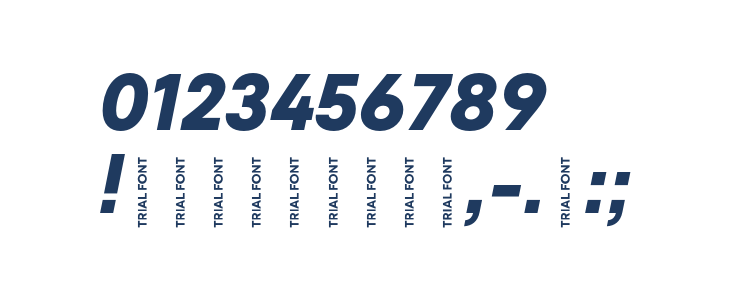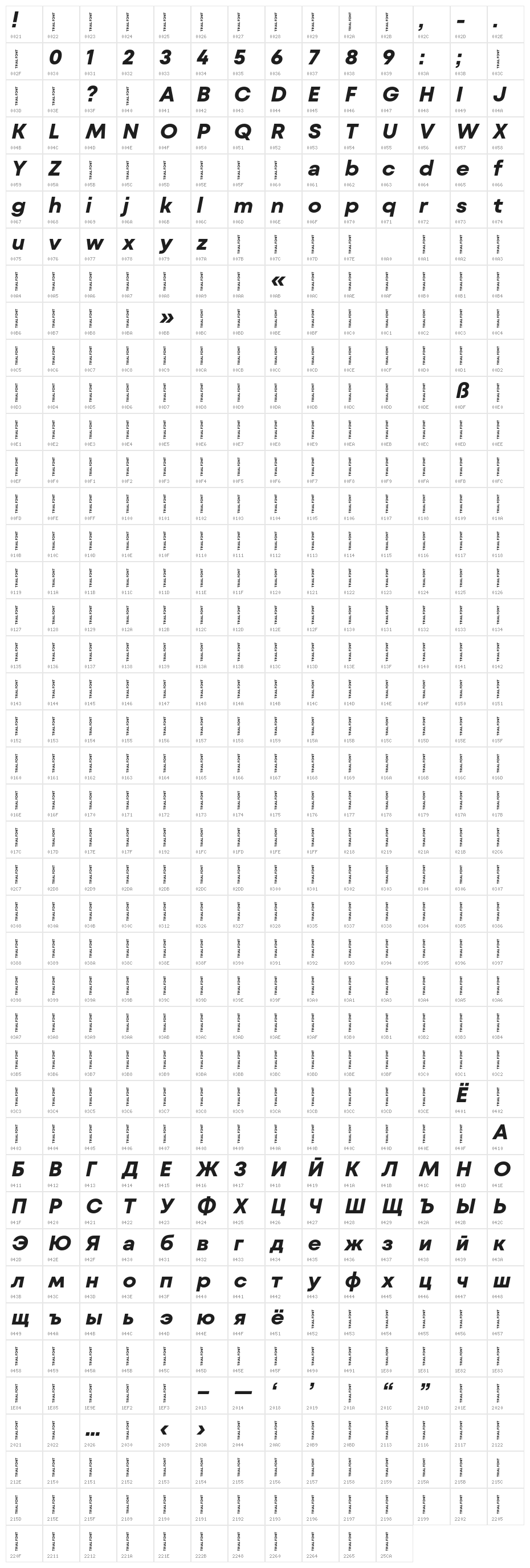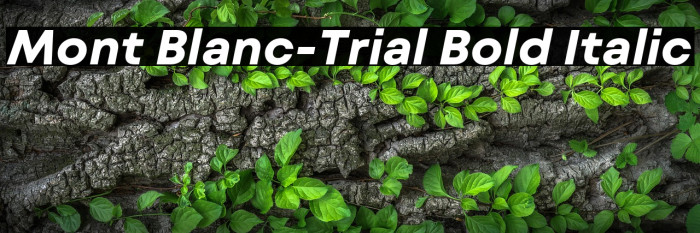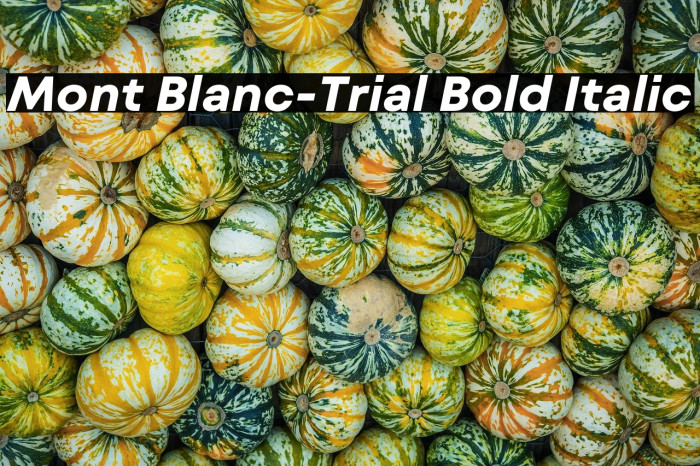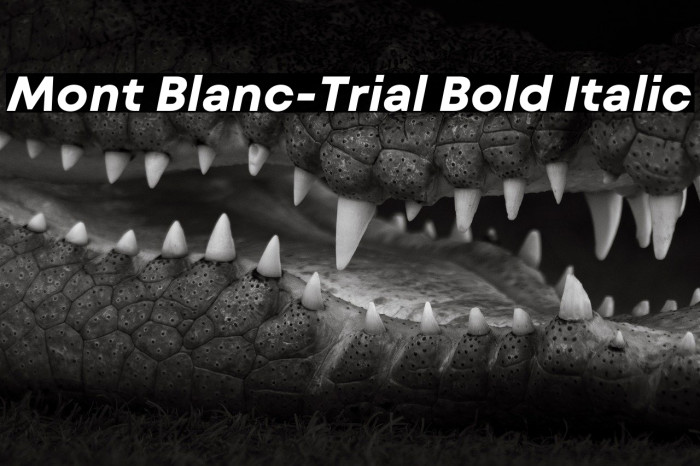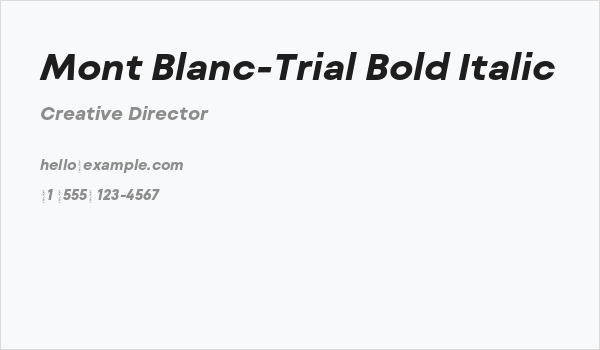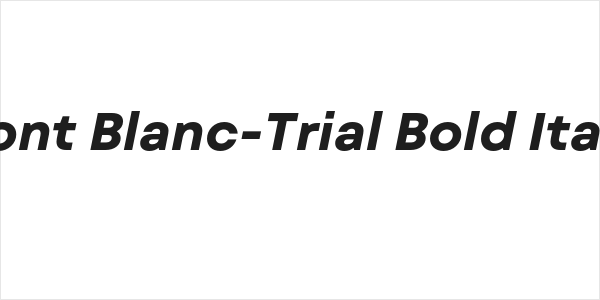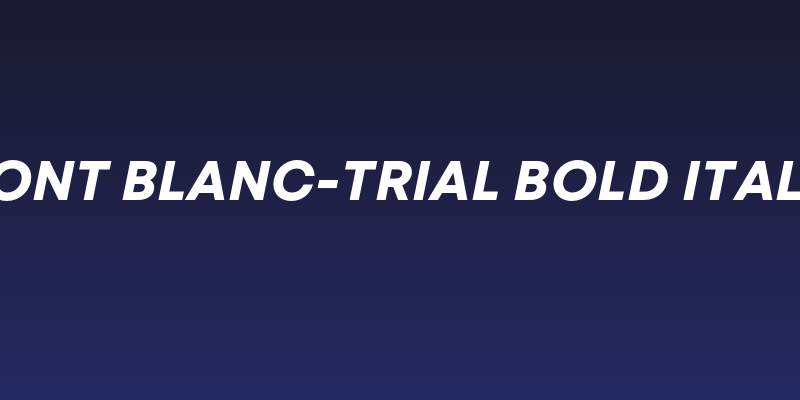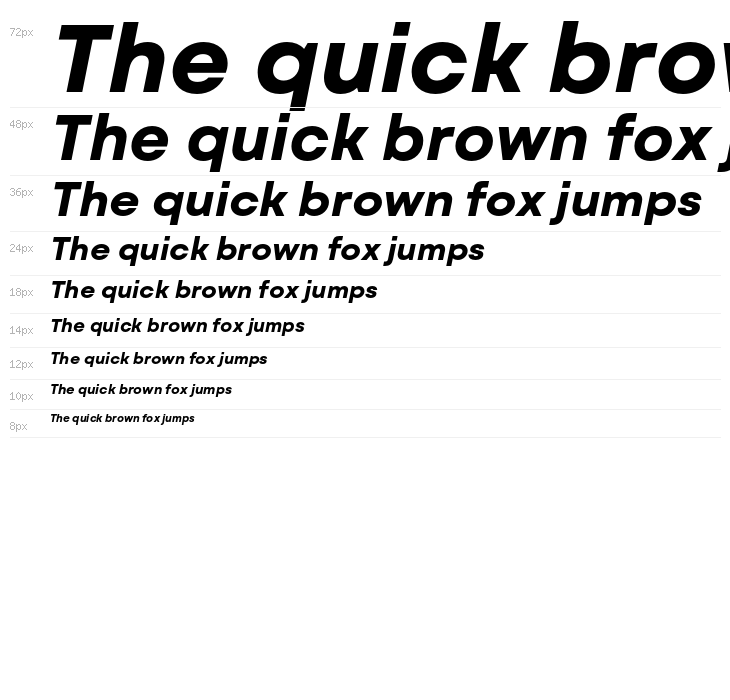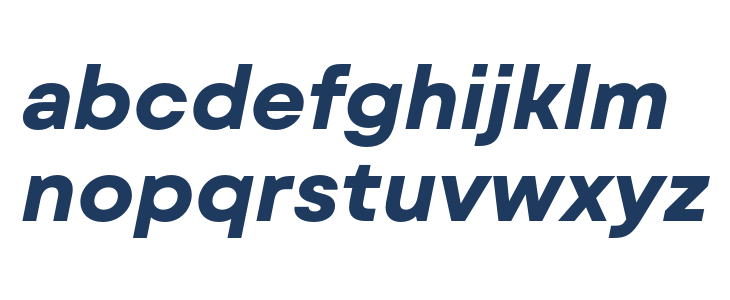
Mont Blanc-Trial Bold Italic Font
Mont Blanc-Trial Bold Italic Description
This font features a bold and italicized style, combining strong, thick strokes with a dynamic slant. The characters are designed with a modern sans-serif aesthetic, offering a clean and professional look. The uppercase letters are robust and impactful, while the lowercase letters maintain a consistent flow, enhancing readability. The numerals are equally bold, ensuring clarity and emphasis. Special characters are crafted with precision, maintaining the overall cohesive style. This font is ideal for making a statement, with its bold presence and modern appeal.
Use CaseHeadlines, Logos, Branding
Proposed ProjectsIdeal for branding, advertising, headlines, and any project requiring a strong visual impact.